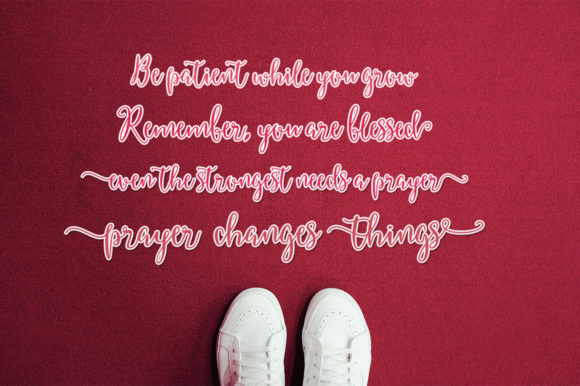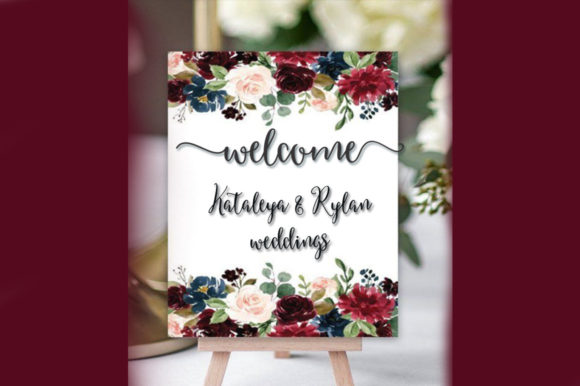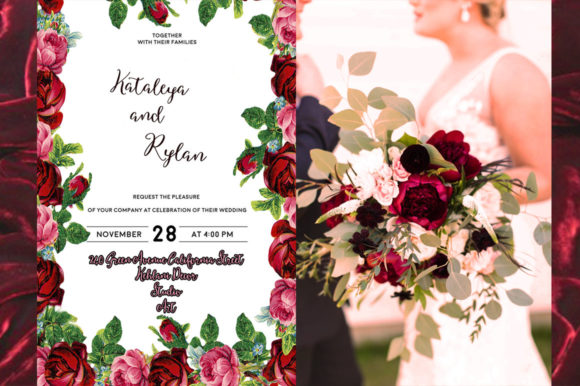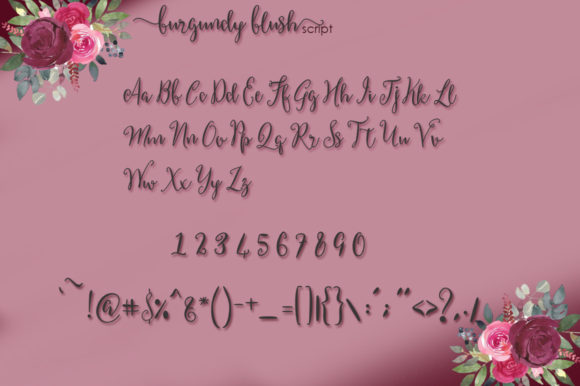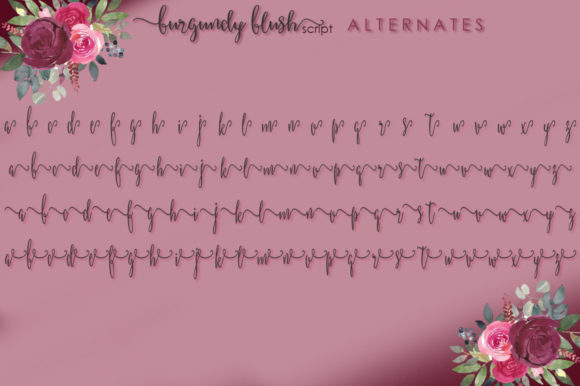
Unlock the Magic of Handwritten Charm with Burgundy Blush Script Font
Have you ever been working on a creative project, and suddenly, the words just flow effortlessly onto the page? You’re in the zone, and nothing can stop you from bringing your vision to life. That’s exactly what happened to me when I first laid eyes on the Burgundy Blush Script Font. Its charming, playful characters seemed to dance along the baseline, making me want to create something beautiful and whimsical.
As a designer, I know how valuable it is to have the right tools at your disposal. That’s why I’m excited to share with you the Burgundy Blush Script Font, a lovely script font that’s perfect for adding a touch of personality to your designs. With its PUA encoding, you’ll have access to all the glyphs and swashes you need to make your ideas stand out.
Burgundy Blush Script Font Key Features
- Unique Characteristics: The Burgundy Blush Script Font features beautiful, flowing script letters with subtle flair and elegance, making it perfect for wedding invitations, greeting cards, and other special occasions.
- Customization Options: The font includes a range of OpenType features, such as ligatures, swashes, and ornaments, allowing designers to customize the font to suit their specific design needs.
Burgundy Blush Script Font Review
I’ve had the chance to work with the Burgundy Blush Script Font and here’s my honest take on it.
- The Burgundy Blush Script Font has a beautiful, elegant feel to it. It’s perfect for adding a touch of sophistication to your designs.
- The script font is highly customizable, with a range of weights and styles to choose from. This makes it versatile and easy to use in different design contexts.
- The font is well-suited for use in wedding invitations, announcements, and other special occasion designs. It’s also great for creating beautiful quotes and captions.
- The Burgundy Blush Script Font may not be the best choice for body text, as it can be difficult to read in smaller font sizes.
- The font may not be suitable for use in digital products, such as apps or websites, where a more modern and clean font is often preferred.
Overall, I think the Burgundy Blush Script Font is a beautiful and elegant script font that’s perfect for adding a touch of sophistication to your designs. However, it may not be the best choice for all design contexts.
For the best results, use the Burgundy Blush Script Font in conjunction with a bold or italic font to create contrast and visual interest.
Experiment with different font sizes and colors to achieve the desired look and feel.
The Burgundy Blush Script Font is ideal for:
- Birthday and holiday cards